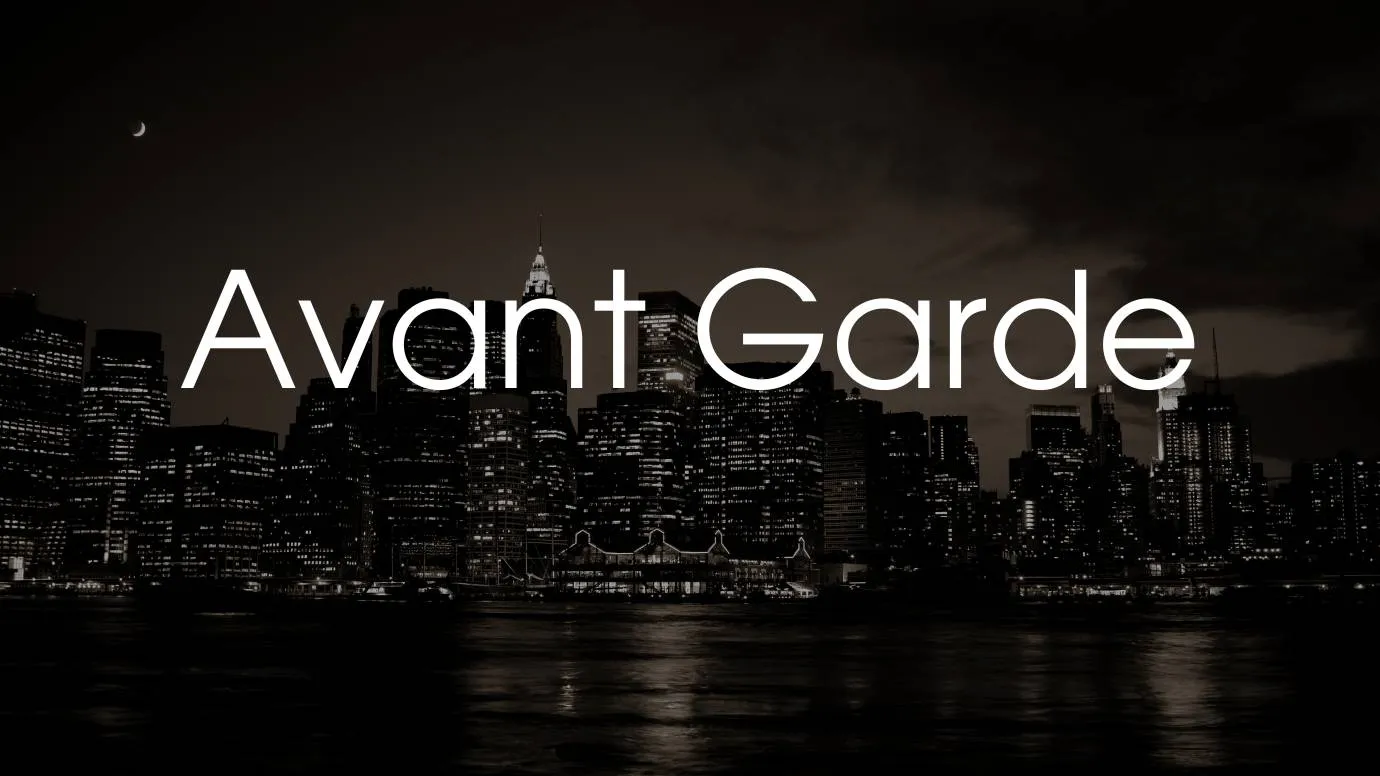
Avant Garde belongs to geonetric sans serif typeface family. This font was used in the logo of Avant Garde magazine. It was designed by Herb Lubalin and his partner Tom Carnase.
NameAvant Garde Font
TypeGeometric Sans-Serif
DesignerHerb Lubalin, Tom Carnase